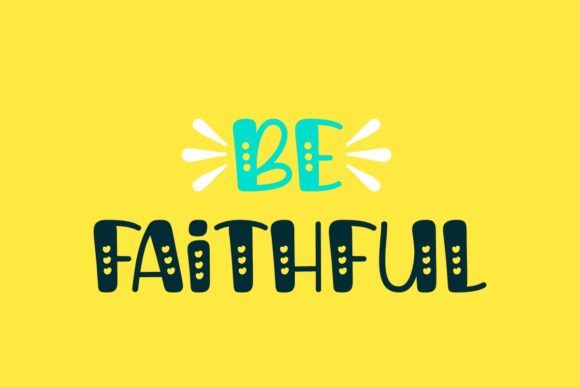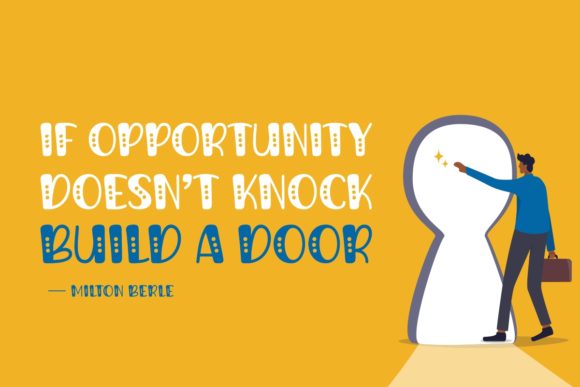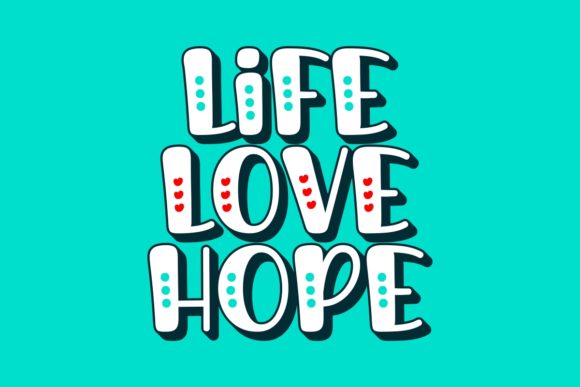
Introduction to Do Your Best Font
Do Your Best is a fun and friendly display font.
A little bit quirky, this font looks incredibly adept on a wide variety of contexts It will look amazing in stationery, logos, social media post and any project that requires a unique look.
Key Features of Do Your Best Font